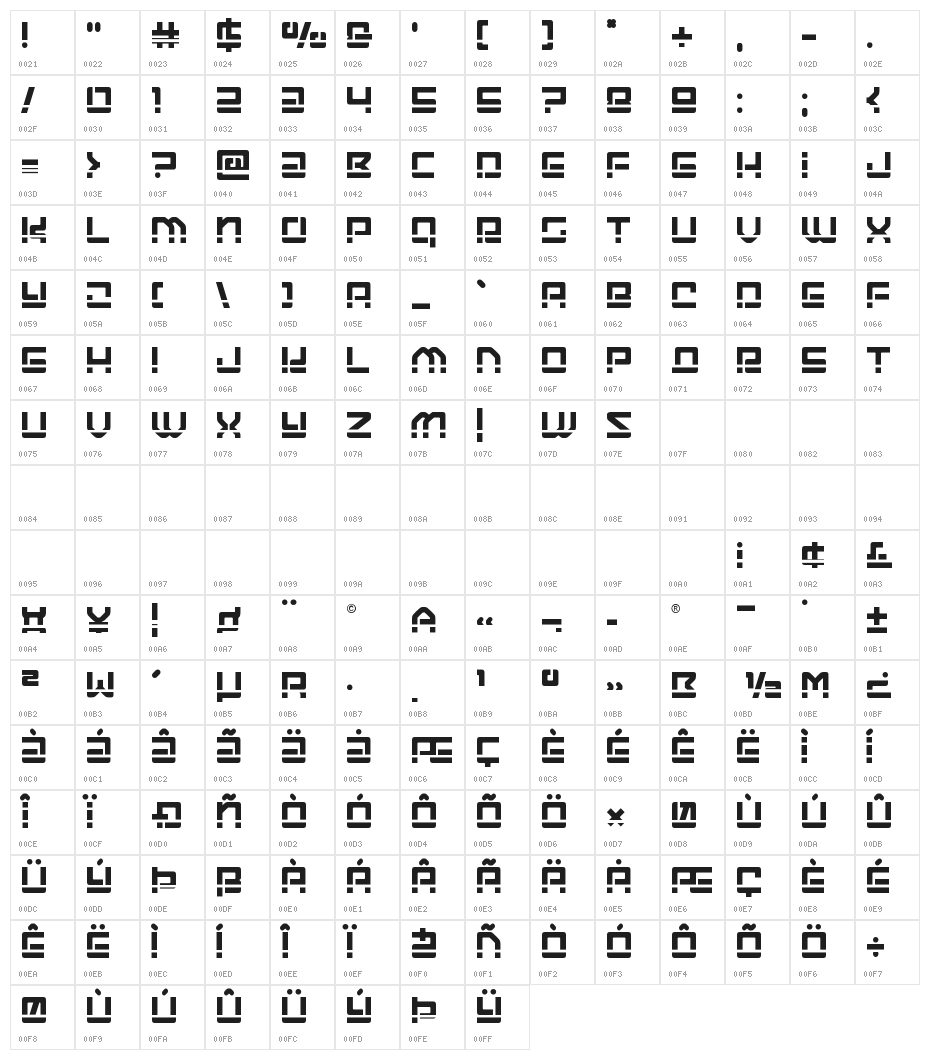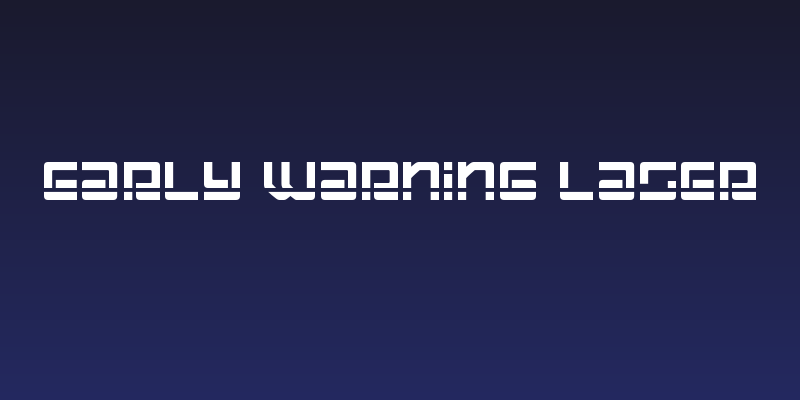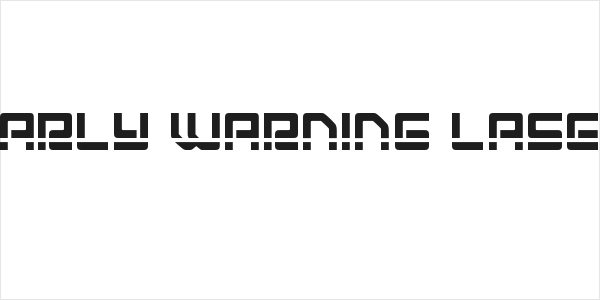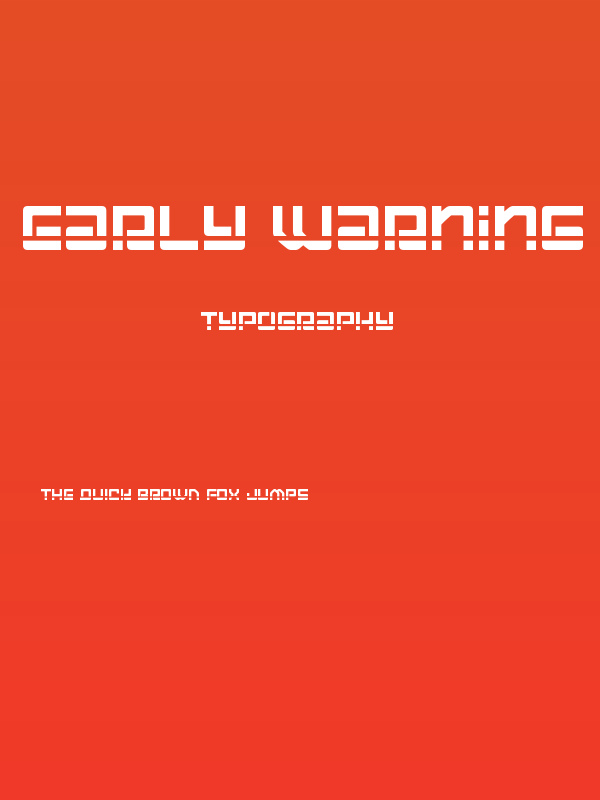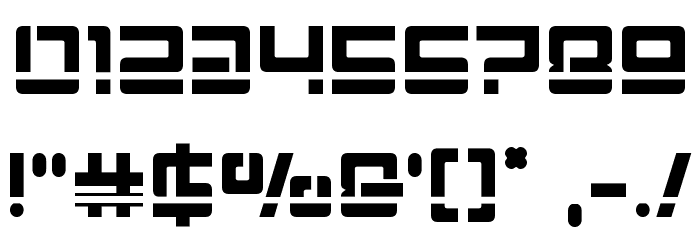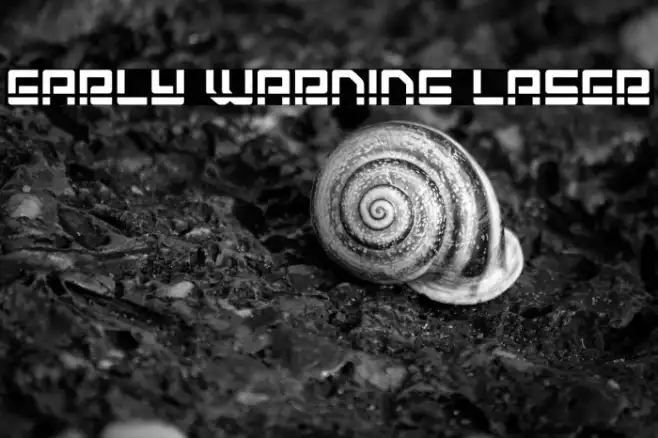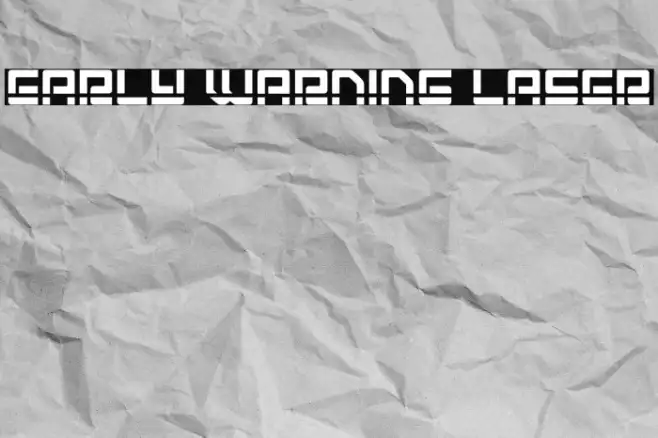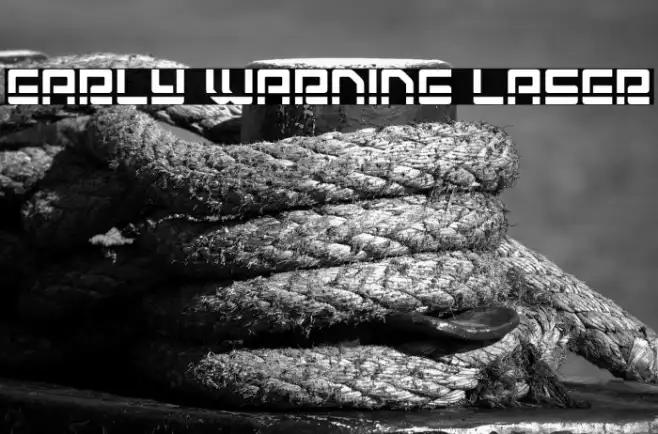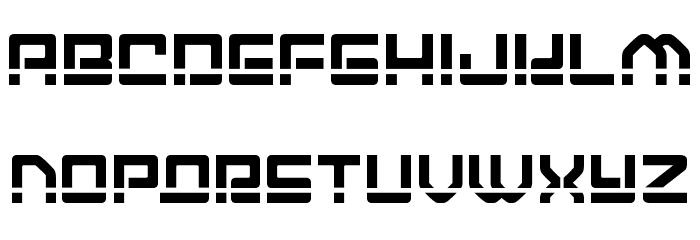
Early Warning Laser Font
Early Warning Laser Description
This font features a futuristic and geometric design, characterized by its bold and blocky appearance. Each character is constructed with a series of straight lines and sharp angles, giving it a distinctly modern and digital feel. The uppercase and lowercase letters maintain a consistent style, with a uniform height and width that enhances readability. The numbers and special characters are designed to match the overall aesthetic, ensuring a cohesive look across all elements. The font's unique style makes it ideal for projects that require a cutting-edge or technological theme.
EARLY-WARNING-LASER UPPERCASE
EARLY-WARNING-LASER LOWERCASE
EARLY-WARNING-LASER OTHER CHARS
| Proposed Projects | Ideal for technology-themed designs, video game interfaces, sci-fi movie posters, and modern branding projects. |